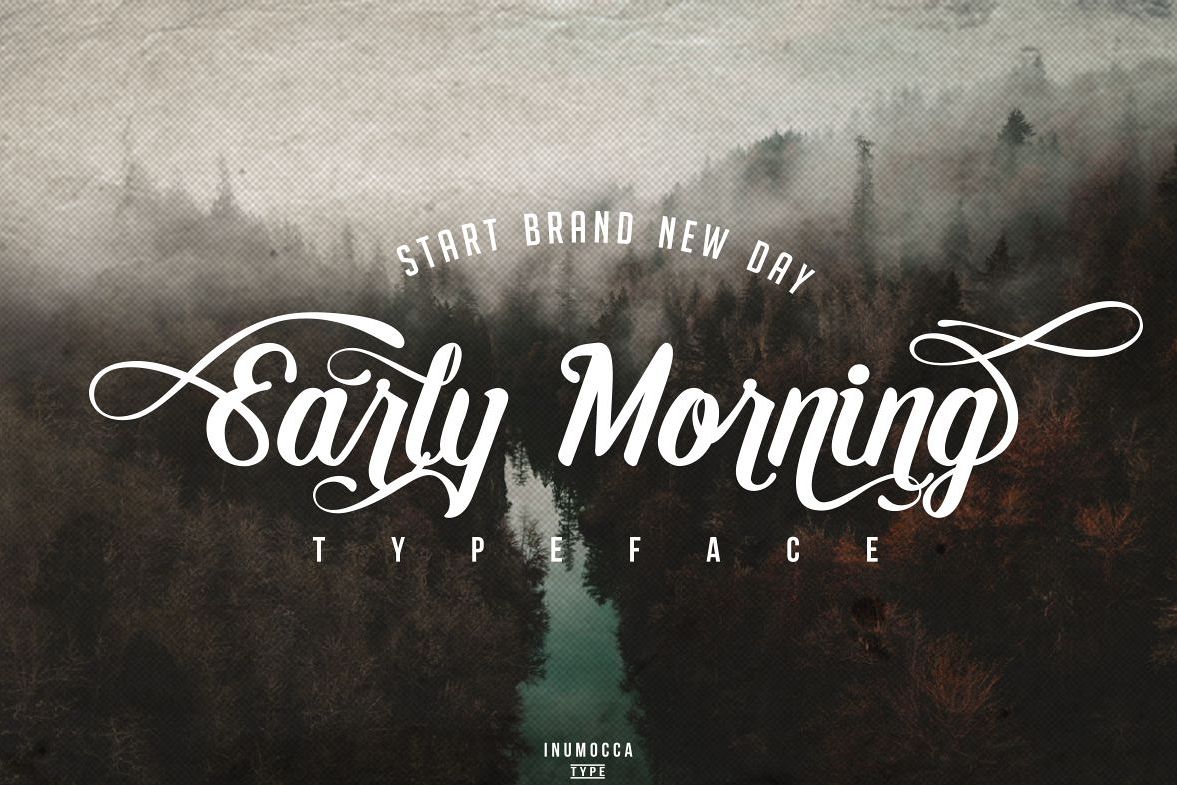
Early Morning Typeface
**Early Morning Typeface** its a modern classic typeface, really beautiful to typography, your brand, your shop, Logos, catalog, wedding invitation , all about of fashions and arts.
Early Morning Typeface, more 400 unique glyphs
Early Morning Typeface, support with Opentype
- **This font also featured with PUA encode**,(Use character Map for WIndows OS, use Font Book for Mac OS). *(update 22 September 2016)*- Unique glyphs- with cool **Stylistic Alternates**- **Swash**- **Stylistic Sets 1,2,3,4,5**- **Ligatures**- **Multilingual characters**